I am remiss for not having posted an entry here in so long. The fact of my finally finishing up the first true serif text-type family I’ve ever made is no good excuse (unlike, perhaps, my propensity to enter The Type Design Zone and not emerge for weeks at a time). Anyway, apologies.
But I have something to share today that I hope will make up for the delay: a dive deep into the quirks and peculiarities of 19th-century penmanship—or at least one man’s peculiar, quirky penmanship—that should give you an idea of how to go about deciphering old handwriting. Or at least how I do it.
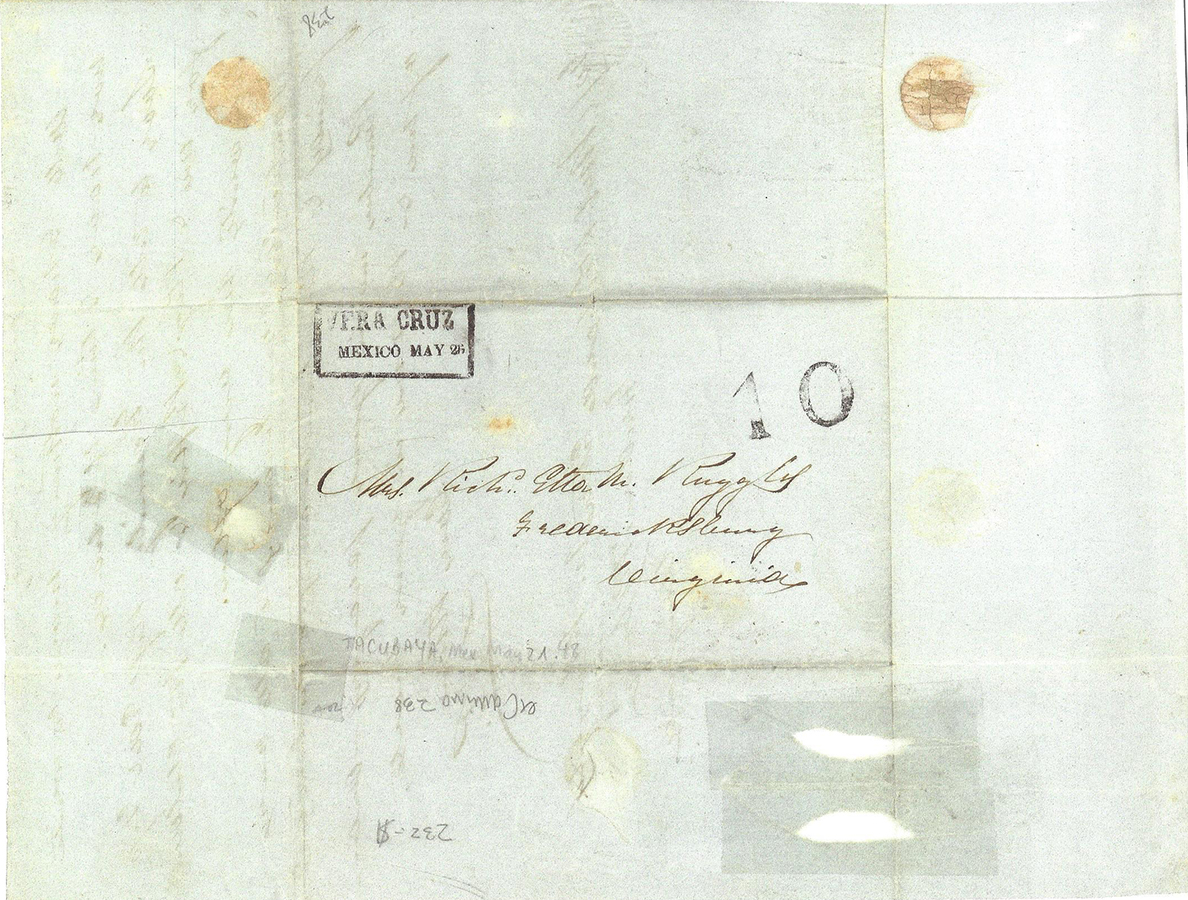
Address page of the Ruggles letter.
The penmanship in question appears in a digital scan of a three-page letter (see below) sent to me by an acquaintance who has an enviable collection of historical records and documents from the days of the Republic of Texas. I’d transcribed a handwritten narrative for him already, one whose puzzles were mostly problematic words and short phrases. But this new letter—despite its bold and graceful pen strokes—caught me off guard for its first-blush illegibility. I’ve had plenty of trouble deciphering old handwriting, but at first glance I can usually get a fairly good idea of who had written a thing, or what was being written about. The scan of this letter, with its alluring greenish tinge, seemed more or less inscrutable.
Eventually, though, I managed to puzzle out every word. Here’s how.
An important clue was the destination address on the outside of the folded letter. I’d already looked at the first page, at the date and salutation, but all I could quickly read in the author’s sweeping script was a date that looked like “May 21st, 1838,” the country of origin, “Mexico,” and a town that might’ve been Guadalupe. The outside address was stamped VERA CRUZ MEXICO and had an old notation in pencil that offered two quick corrections: 1) the date was in fact 1848, and the town was Tacubaya (a far cry from Guadalupe!). Upon close inspection, the address appeared to be:
Mrs. Richd Ella M. Ruggles
Fredericksburg, Virginia
Another puzzle. Was this a woman named Ella who was married to a man named Richard Ruggles? At least by now I had determined that the writer’s lowercase “a” looked like an “o” followed by an extra “i”-like stroke. And that the “d” had a very short ascender. After staring for a while I noticed a seemingly random horizontal stroke that told me her name likely wasn’t Ella after all—but Etta.
Daniel Ruggles.
I took a peek at the last page of the letter, which the author had stylishly signed with the just his initials, “D.R.” So if this was a husband in Mexico writing a wife back in Virginia, his given name was clearly not Richard.
I pored for a while over the salutation, which—now that I could identify a few odd-shaped letters—I managed finally to work out: “My dearest Etta.” (I was now confident that was her name, from the way the cross of the “t” in “dearest” nearly missed the letter altogether, as did the cross of the double-“t” in Etta.) I soon also had the first paragraph deciphered. Not that it held a lot of clues. Further on I could read a few words and phrases, among them “prospect of peace,” “treaty,” “the 19th inst. Friday,” and what appeared to be the phrase “Chamber of Deputies.” I saw that the author made peculiar “r”s that had a sort of extra squiggle at the end, figured out that those tiny, two-line shapes were ampersands, grew accustomed to his open, unusual “I”s—and realized he was likely in Mexico because of war.
It was time to poke around online.
By searching for “Mexico,” “war,” and “1848,” I confirmed that the Mexican-American War ended in that year. A treaty was signed in February, but U.S. troops didn’t entirely evacuate until August. So I searched for “Ruggles” and “Mexican-American War”—and first on the list of results was a Wikipedia entry for Daniel Ruggles (1810–1897), a Brigadier General for the Confederacy in the American Civil War. I learned that, before that war, U.S. Lt. Col. Ruggles had served in the Texas Campaign, and later, after a long life, had died in Fredericksburg, Virginia.
A search for “Daniel Ruggles” and “Richard Etta” got me genealogical records showing that Richard Etta (or “Richardetta”) was in fact the wife of Daniel Ruggles. I learned that Etta’s maiden name was Hooe, that her middle initial stood for Mason, that she and Daniel were married in Michigan in 1841, and that she died in 1904. I even got a look at the the Ruggleses’ headstone in Virginia.
Armed with this additional background info (which helped also with the seemingly incongruous mention of “Saut on Ste Marie”) and a sense of context, I set to work transcribing Daniel Ruggles’s letter home to his wife, Richardetta. It took nearly two hours, but I got it done.
Deciphering old penmanship can be a puzzle, for sure, but a puzzle that—thanks, ironically, to the digital technology that might ultimately doom handwriting altogether—often promises a circuitous journey through interesting times gone by.
Below are the scans of the three pages of Ruggles’s letter, each followed by my transcription of that page. (Click any page image for a larger view.) I hope and expect you’ll find its contents surprising and fascinating.
The Ruggles Letter, page 1.
Tacubaya, Mexico
May 21st 1848
My Dearest Etta,
I have an opportunity to send you a line tomorrow morning early and write you, although I sent day before yesterday one with most things of importance noted.
Today however I can confirm in some measure this report in relation to the prospects of peace & it is therefore I write so soon again— as I am well aware that you are looking for every peaceful sound or show of hope as well as myself.